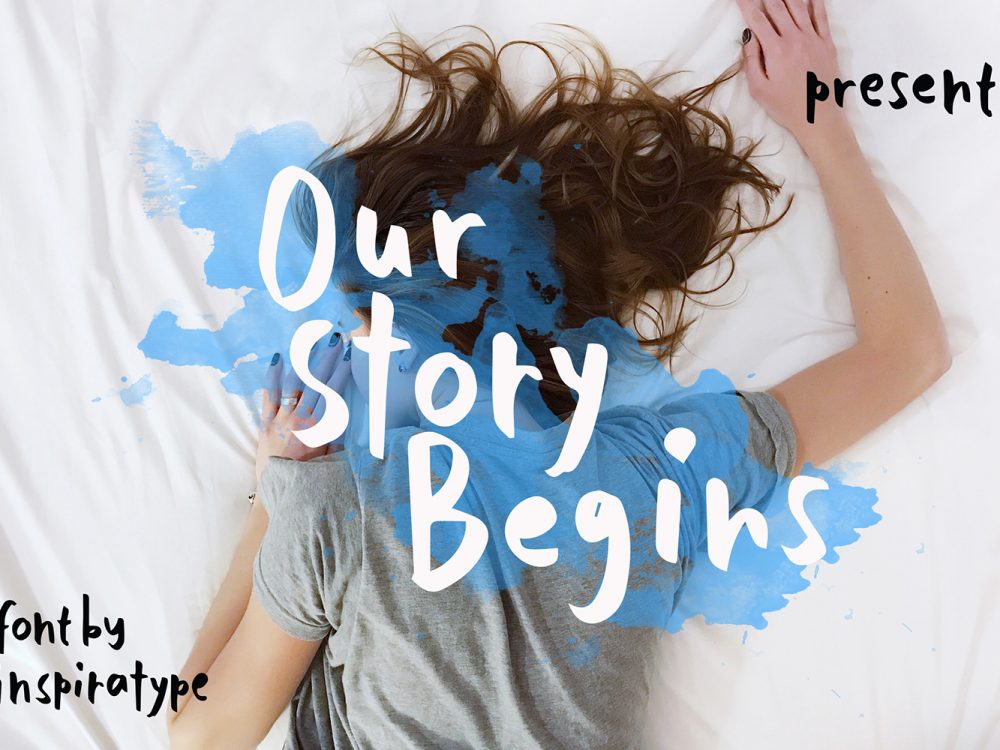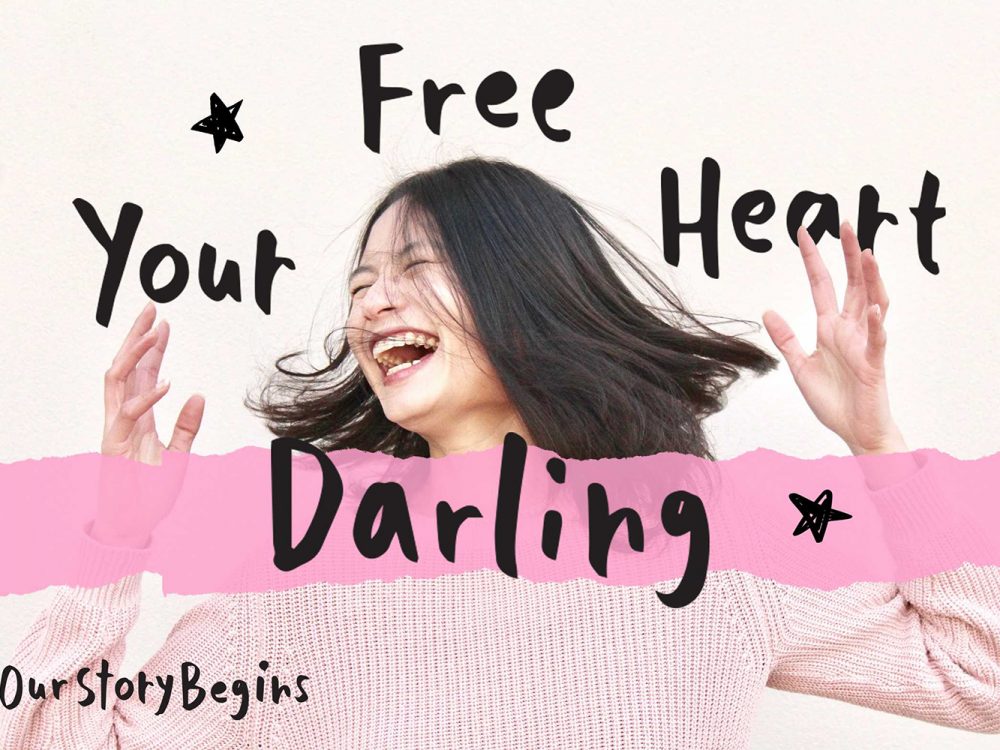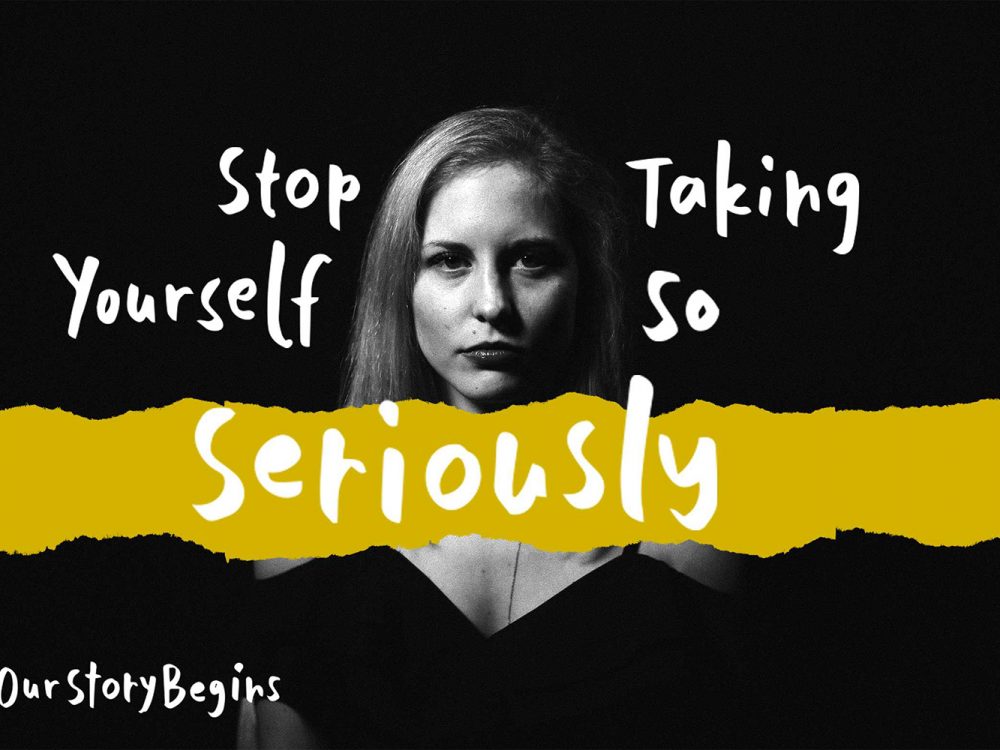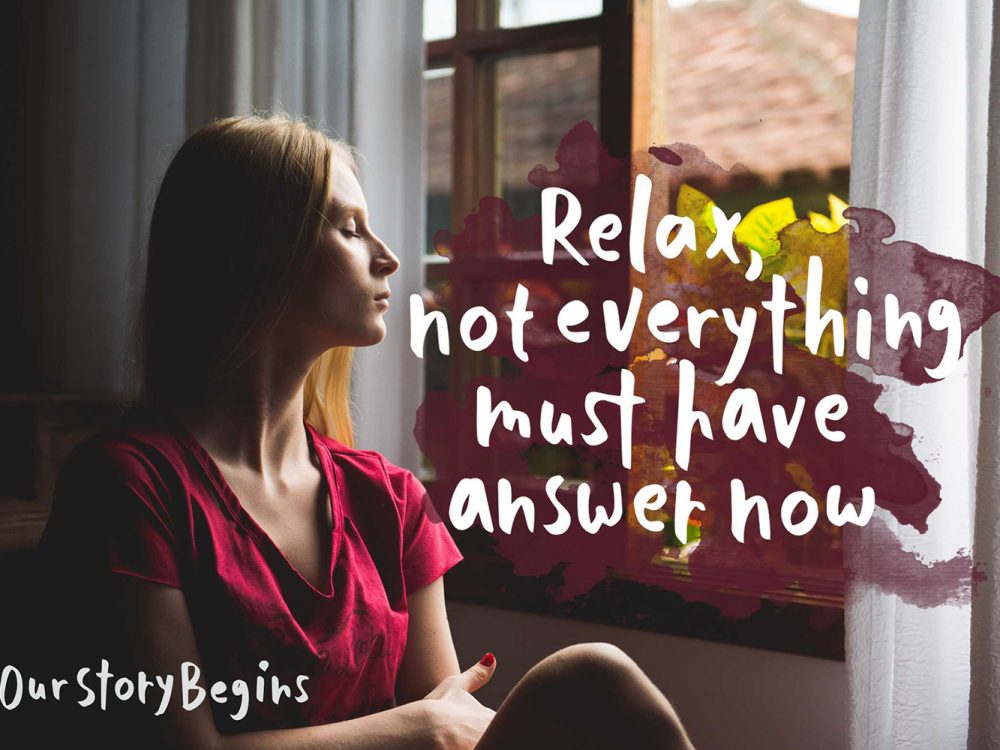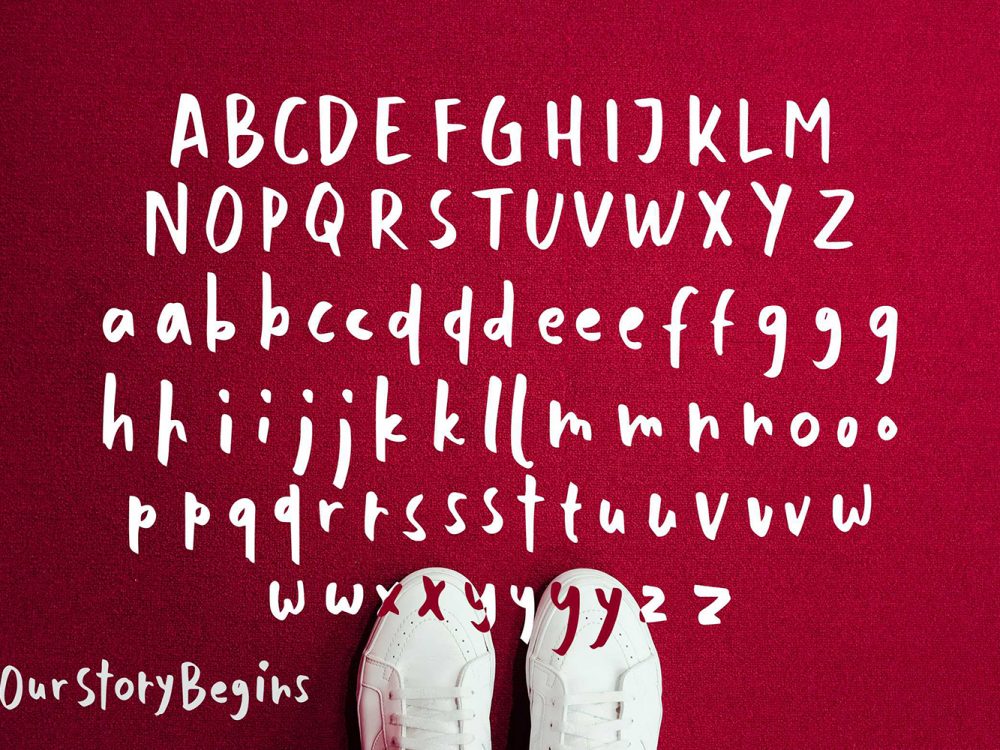
Our Story Begins Free Font
Our Story Begins Free Font is an interesting modern handwritten font that mimics writing with a brush. Comes with uppercase, lowercase, numerals, punctuations and so many variations on each character include OpenType alternates, common ligatures. This font compares favorably with other fonts with a modern style and is very well suited for your various design projects that require a quality script font. You can use this font to create memorable romantic posters, wedding invitations, greeting cards, branding, flyers, t-shirt and pillow prints, and more. If you like it don’t forget to check out the full version.